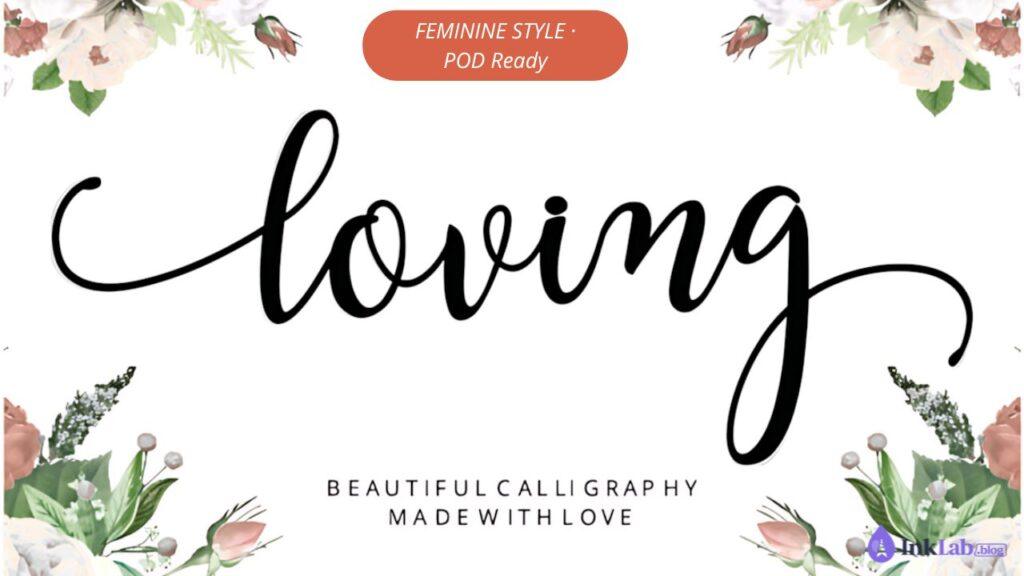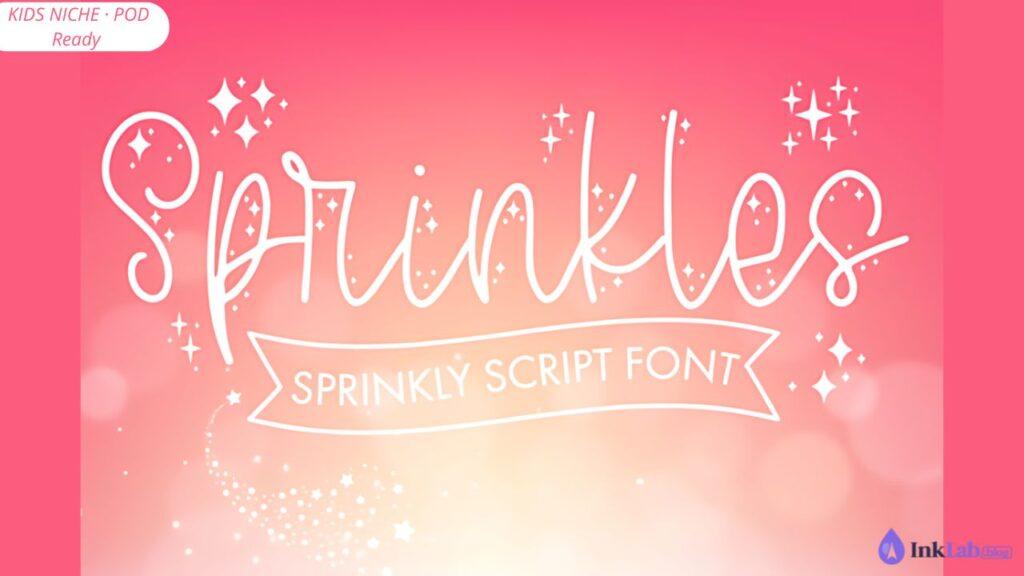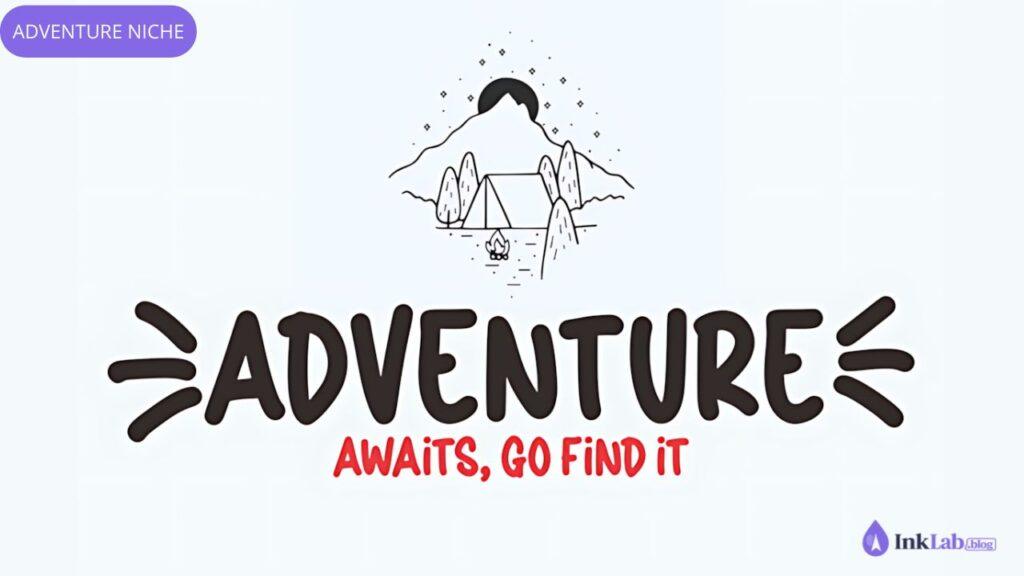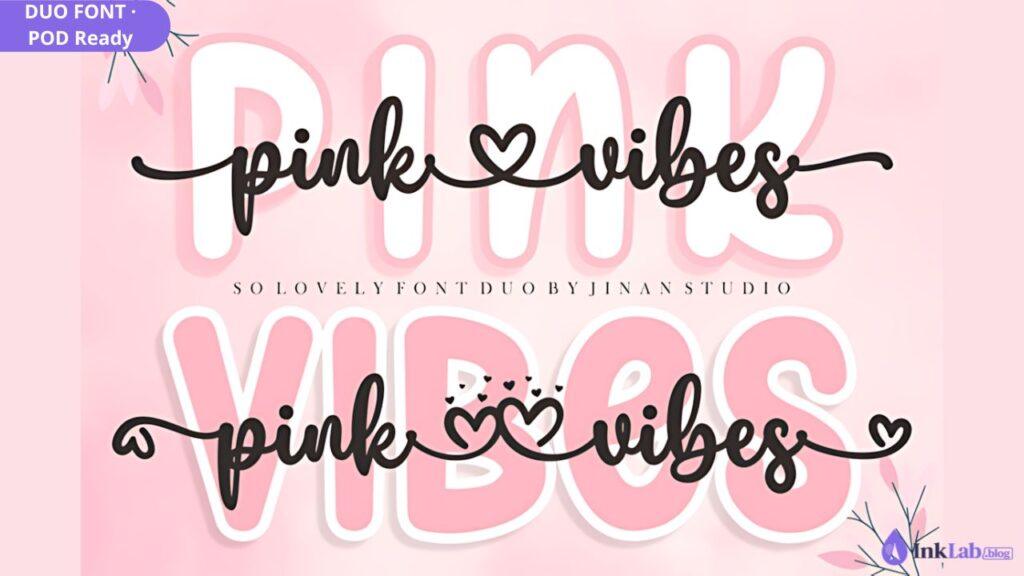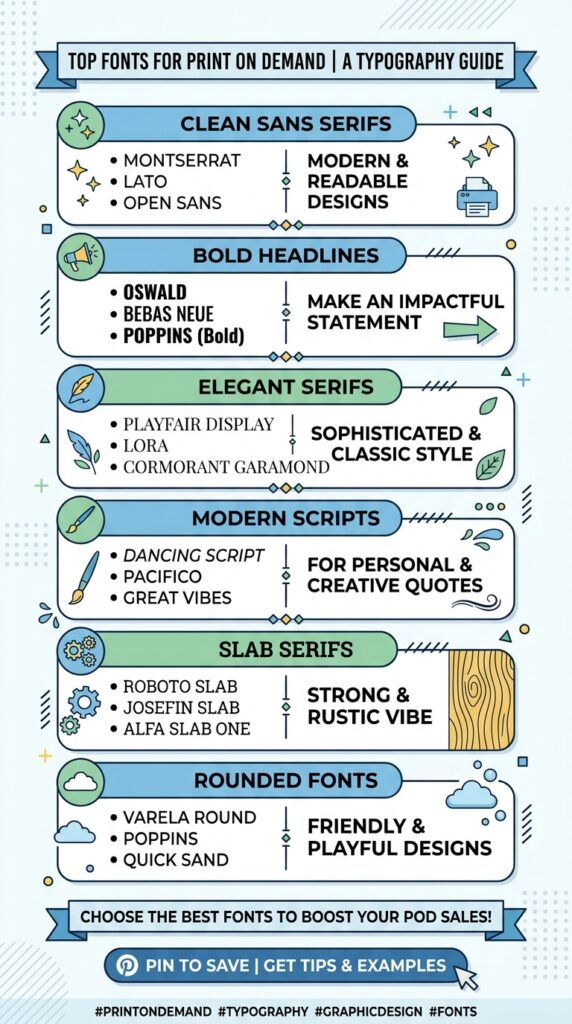
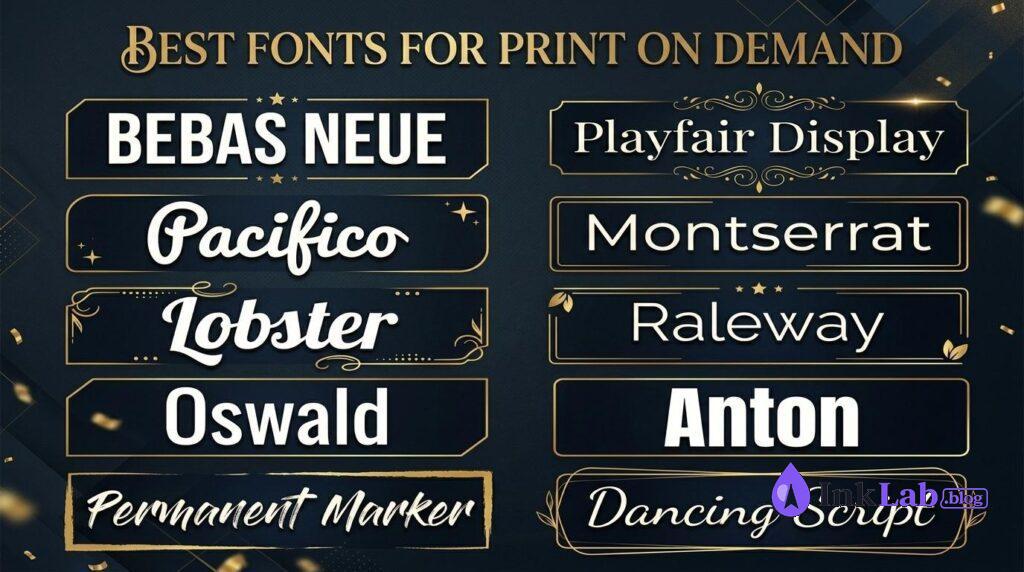
Choosing the right font can make or break your Print on Demand product. Whether you’re designing t-shirts, mugs, or tote bags, the best fonts for Print on Demand make all the difference. Here are our top free and premium picks that work beautifully on any product.
Why Fonts Matter for Print on Demand
The right font communicates your brand instantly. A bold display font works great for statement tees, while an elegant script suits wedding or gift products. The wrong font — even with a great design — can hurt your sales.
Top 10 Free Fonts for Print on Demand
Bebas Neue
Bold all-caps font — the go-to for streetwear tees, gym shirts, and statement designs. Clean, strong, and instantly recognizable.
Clean and modern — works on everything from mugs to hoodies. One of the most popular POD fonts for a reason.
Elegant serif font — perfect for wedding products, gift items, and anything targeting a feminine or luxury market.
Strong condensed font — ideal for sporty designs, gym wear, and athletic-themed POD products.
Stylish thin font — perfect for minimalist POD products, premium-feel designs, and anything targeting a modern aesthetic.
Casual handwritten style — fun and authentic. Works great for humorous tees, casual gifts, and everyday POD products.
Eye-catching bold display font — perfect for making a statement. Great for quote tees, posters, and bold POD designs.
Retro script popular for beach and lifestyle brands. Cuts beautifully and looks great on apparel, mugs, and tote bags.
Classic script — timeless and versatile. Works across every POD niche from gifts to apparel to home decor.
Ultra-bold condensed font — great for gym and fitness designs, motivational tees, and high-impact statements.
Free fonts are great for getting started. But premium fonts give you a unique edge — your designs won’t look like everyone else’s. Here are top premium picks from Creative Fabrica.
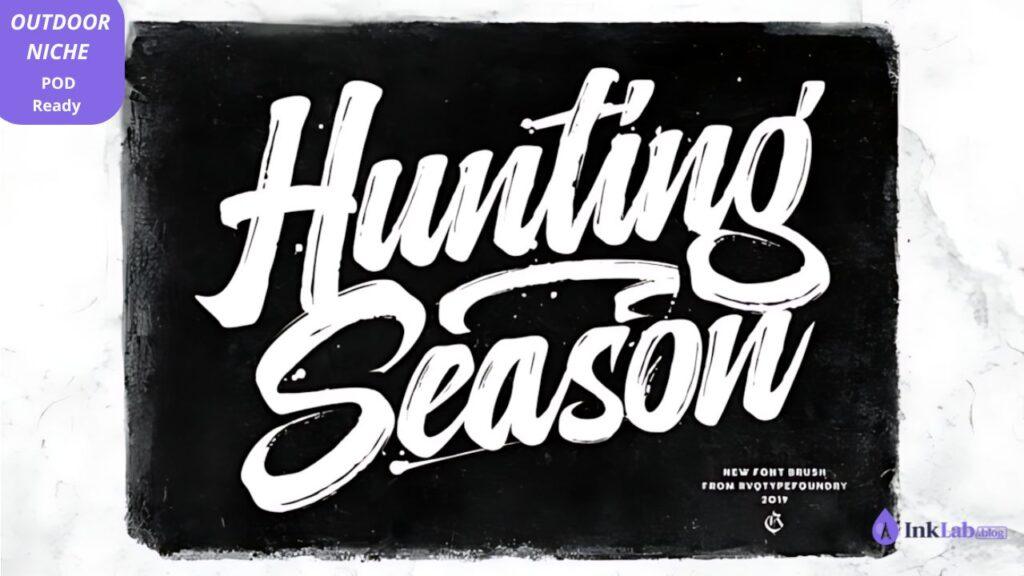
Hunting Season Font
Bold rugged font — perfect for outdoor, hunting, and adventure-themed POD products. Strong visual impact on t-shirts, hoodies, and hats.
Loving Font
Elegant script — perfect for feminine POD products, wedding designs, and gift items targeting women. Beautiful on mugs, tote bags, and apparel.
Sprinkles Font
Fun and playful — ideal for kids’ products, baby shower designs, and anything targeting families and parents. Eye-catching and cheerful.
North Hiking Font
Strong outdoor font — great for hiking, nature, and adventure-themed POD brands. Rugged and distinctive on apparel and accessories.
Pink Vibes Duo Font
Duo font pack — script and sans-serif in one. Versatile for any POD niche. Works equally well on apparel, mugs, stationery, and gift products.
The right font is one of the most powerful tools in your POD arsenal. Start with the free options from the list above, and when you’re ready, explore premium fonts on Creative Fabrica. Your next best-selling design might be just one font away.
What is the best font for POD t-shirts?
Bebas Neue for bold statements, Pacifico for retro/lifestyle, and Montserrat for clean modern designs. All three are free on Google Fonts.